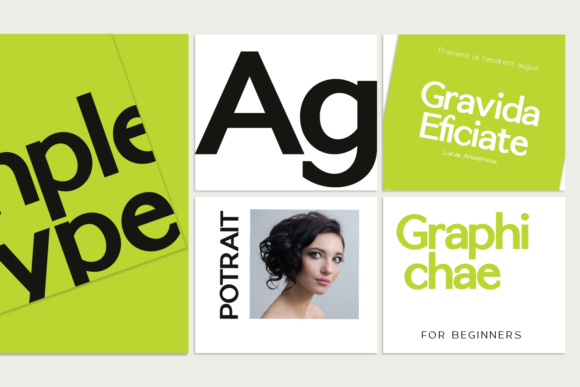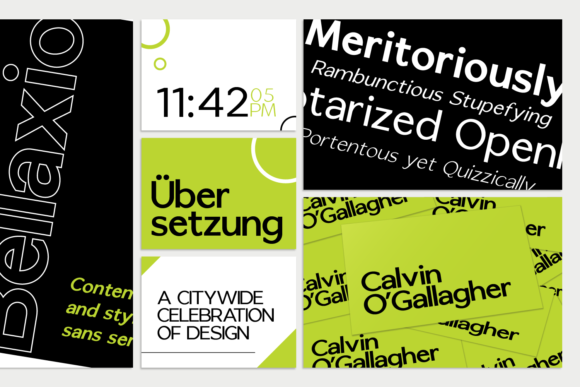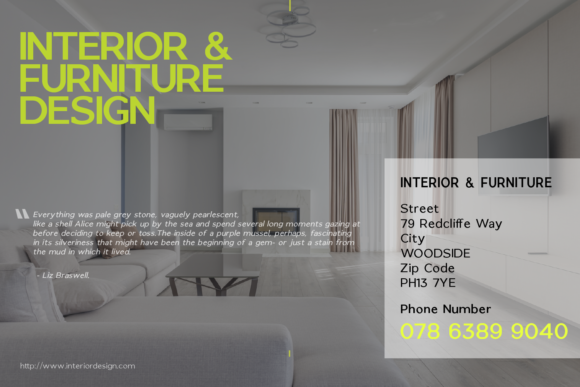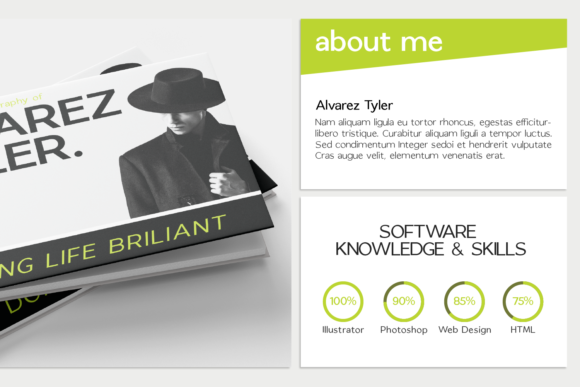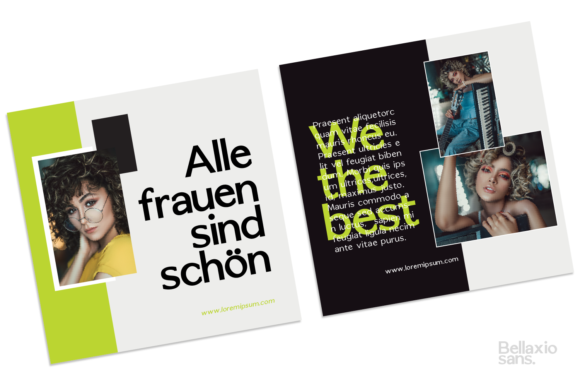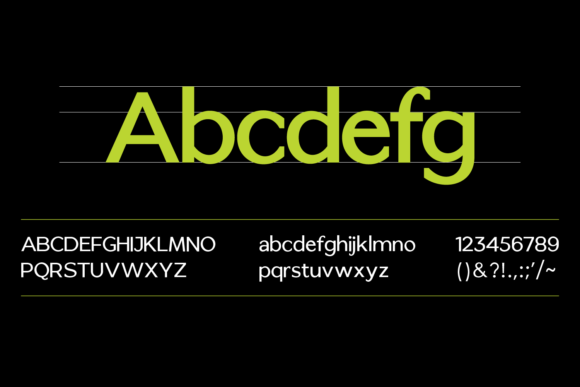
Have you ever stared at a blank canvas, waiting for inspiration to strike? You’ve got an idea, but it’s just not quite coming together. That’s where the perfect font can make all the difference. For designers, finding the right font can be the key to unlocking a project’s full potential.
Enter Bellaxio Sans Font, a minimal and neat sans serif font that’s designed to elevate your creative ideas. With its clean lines and versatile style, Bellaxio Sans Font can easily be matched to an incredibly large set of projects, making it a valuable addition to any designer’s toolkit. Whether you’re working on a logo, brochure, or website, Bellaxio Sans Font is sure to make your designs stand out.
Bellaxio Sans Font Key Features
- Unique Characteristics: Modern sans-serif design with clean lines and geometric shapes, suitable for digital and print media
- Font Weight: 6 weights (Light, Thin, Regular, Medium, Bold, Black) for flexibility in typography
Bellaxio Sans Font Review
I recently had the chance to work with the Bellaxio Sans font, and I must say, it’s a unique addition to my design arsenal. Here’s my honest take on this font.
- Legibility: Bellaxio Sans is highly legible, making it perfect for body text and large blocks of content.
- Neutral tone: The font’s neutral tone makes it easy to pair with any color scheme, giving me a lot of design flexibility.
- Good for headings: The font’s bold and condensed styles make it well-suited for headings and titles.
- Not ideal for fine typography: While legible, Bellaxio Sans isn’t the best choice for fine typography or small text sizes.
- Lacks personality: Compared to other sans-serif fonts, Bellaxio Sans feels a bit bland and lacks a distinct personality.
Overall, I’d say Bellaxio Sans is a solid choice for any design project, especially when legibility and neutrality are key. While it may not stand out from the crowd, it gets the job done efficiently. I’d definitely consider using it again in the future.
Bellaxio Sans is ideal for:
- Body text in digital products
Remember to use Bellaxio Sans in conjunction with a clear, readable font for body text to get the best results.
Alternatives to Bellaxio Sans Font
Inter Font is a sans-serif typeface designed by Rasmus Andersson. It is a modern, clean, and highly legible font that works well for digital interfaces. Use it for websites, mobile apps, and digital products where you need a clear and simple typography. Inter Font is similar to Bellaxio Sans Font in its clean and minimalist design, but it has a slightly more geometric feel and a larger x-height.
Montserrat Font is a sans-serif typeface designed by Julieta Ulanovsky. It is a geometric and modern font that works well for urban and contemporary designs. Use it for logos, branding, and advertising where you need a bold and striking typography. Montserrat Font is similar to Bellaxio Sans Font in its geometric design, but it has a more dramatic and attention-grabbing feel.
Open Sans Font is a sans-serif typeface designed by Steve Matteson. It is a clean and modern font that works well for digital interfaces and print materials. Use it for websites, brochures, and other materials where you need a clear and easy-to-read typography. Open Sans Font is similar to Bellaxio Sans Font in its clean and minimalist design, but it has a more rounded feel and a larger x-height.
Lato Font is a sans-serif typeface designed by Łukasz Dziedzic. It is a clean and modern font that works well for digital interfaces and print materials. Use it for websites, logos, and branding where you need a clear and simple typography. Lato Font is similar to Bellaxio Sans Font in its clean and minimalist design, but it has a more elegant and sophisticated feel.